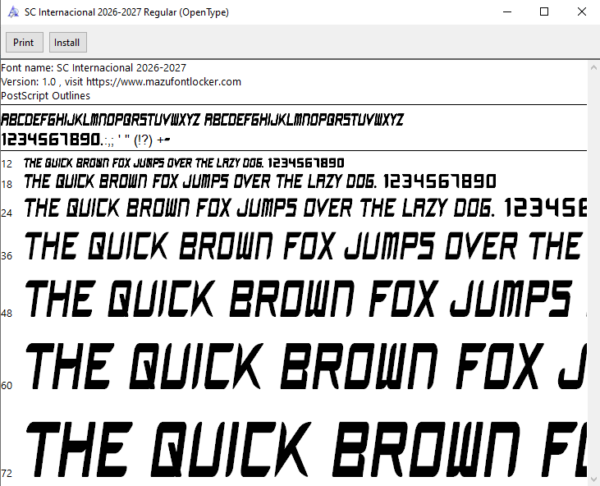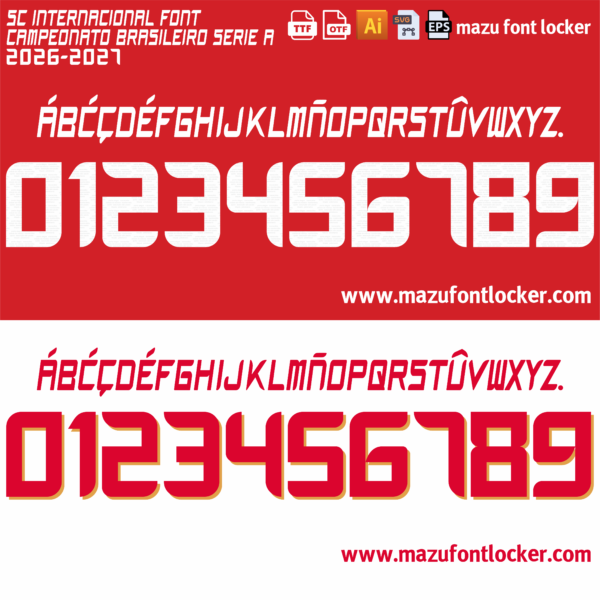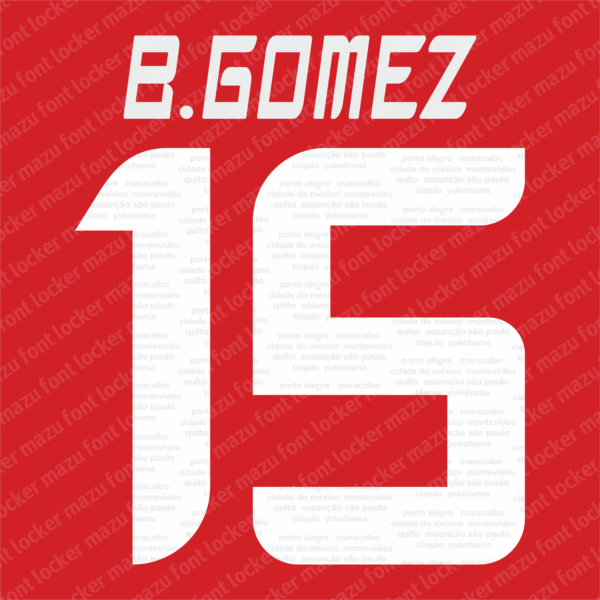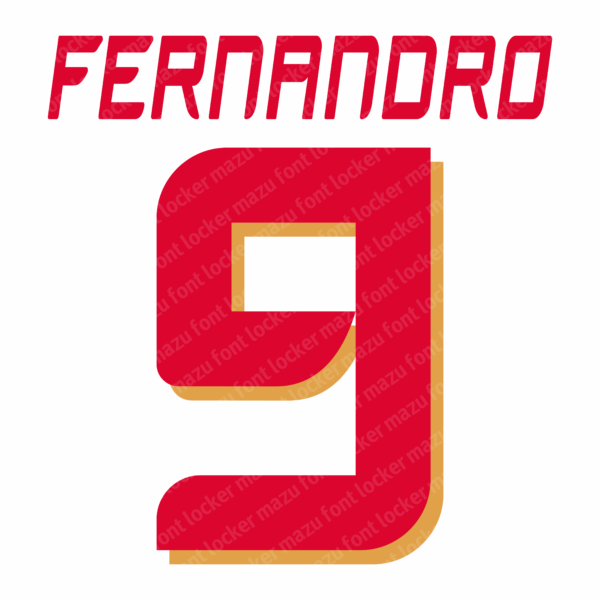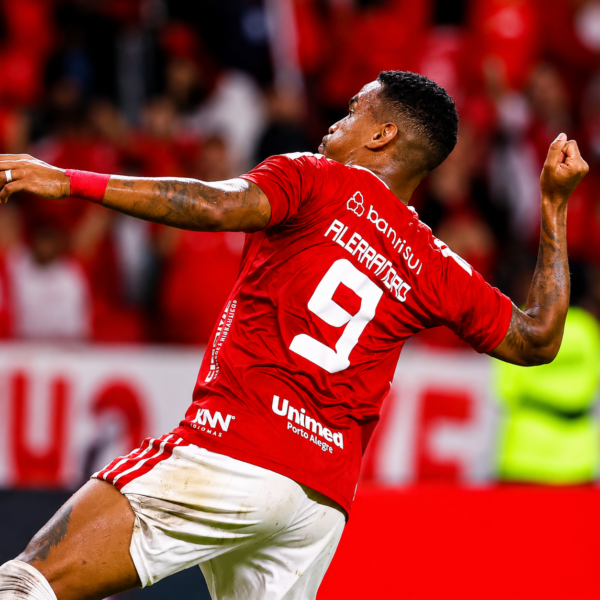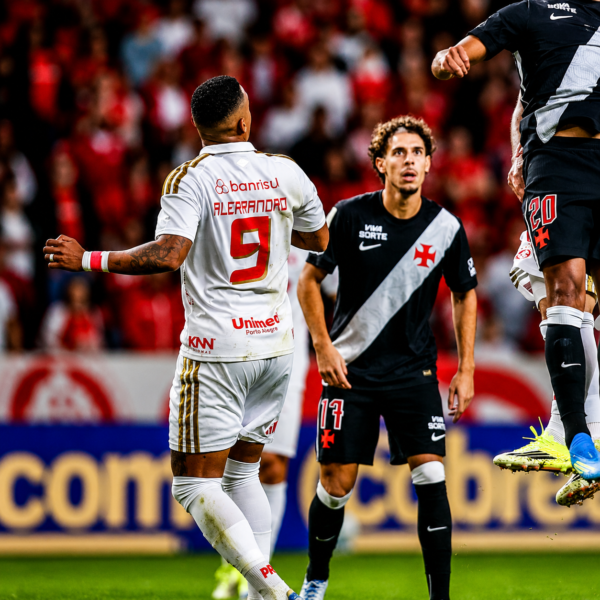
SC Internacional 2026-2027 Font Vector – Unstoppable Colorado Powerhouse
SC Internacional 2026-2027 Font – Authentic Colorado Typeface
The SC Internacional 2026-2027 Font is a premium typeface that accurately recreates the official match lettering worn by Sport Club Internacional during the 2026/2027 season. This high-quality font kit captures the bold, passionate, and modern typography that defines the club’s new era at Beira-Rio.
Designed for professional designers and passionate Colorado fans, the SC Internacional 2026-2027 Font delivers perfect authenticity for creating future jersey mockups, fan merchandise, matchday posters, social media graphics, and much more. It perfectly complements the club’s iconic red-and-white kits from this exciting period.
Why Choose SC Internacional 2026-2027 Font
This font stands out because of its sharp details and strong presence. Every letter and number is crafted to match the exact style used on the players’ shirts during the 2026-2027 season. Whether you are making modern shirt templates or forward-looking football content, the SC Internacional 2026-2027 Font gives your designs that authentic Brasileirão look from the mid-2020s.
The letterforms in the SC Internacional 2026-2027 Font are tall, bold, and highly readable. The strokes have a balanced weight that looks powerful and sophisticated on the back of jerseys while maintaining excellent clarity.
The numerals use solid curves and firm edges, giving them a confident and premium appearance. This design ensures great legibility whether used in large print formats, digital mockups, or dynamic video content.
• Full uppercase A–Z and numbers 0–9 in authentic SC Internacional 2026-2027 style
• Special SC Internacional logo glyph for accurate shirt number detailing
• Includes the exact logo glyph placement used under player numbers
SC Internacional in the 2026/2027 Season